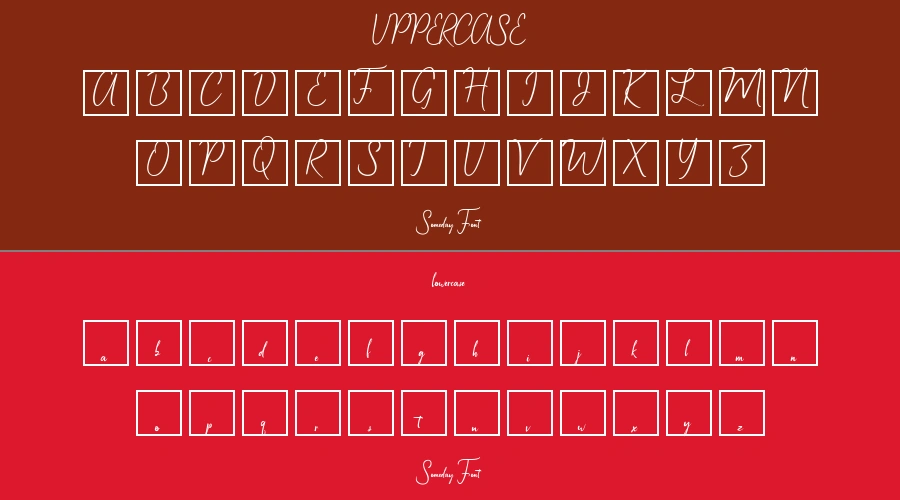
About Someday Font
Designed with precision, Someday Font merges assertive angles with memorable presence in every character. This versatility makes it particularly effective for merchandise graphics, where value and technical excellence directly impact communication quality. Each letterform demonstrates meticulous craftsmanship.
Technical excellence shines through elements like rounded serifs and proportional figures, enhancing typographic versatility. In specification sheets settings, Someday Font proves its worth through superior archive stability. The thoughtful execution of stem weight and brand personality ensures professional results.